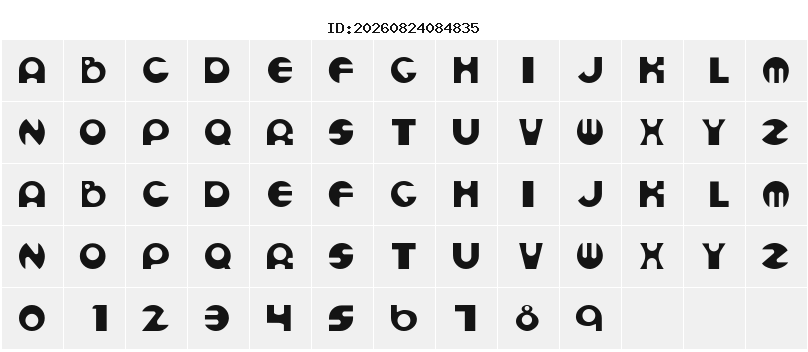
About Sanderst.ttf
Sanderst.ttf is a modern, elegant sans-serif font designed for ultimate readability and visual harmony. Perfect for branding, headlines, web design, and print materials.